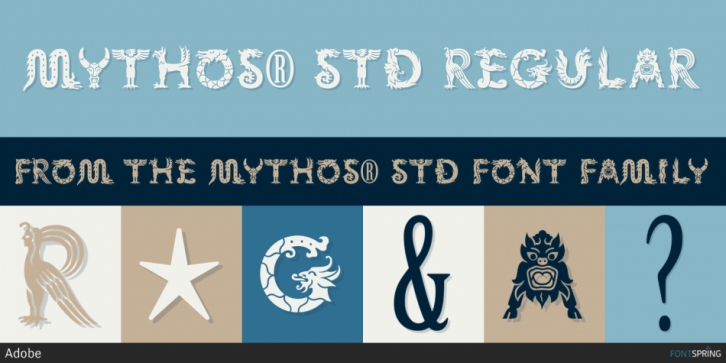
Mythos® Std is a novelty and foreign font  published by Adobe.
Min Wang, Adobe graphic designer, and Jim Wasco, Adobe type staff member, have always been fascinated by mythology from around the world. They carefully studied illustrations of legendary beasts from various cultures. And together they created Mythos.